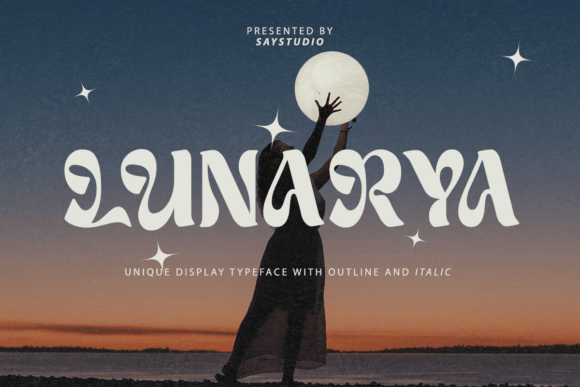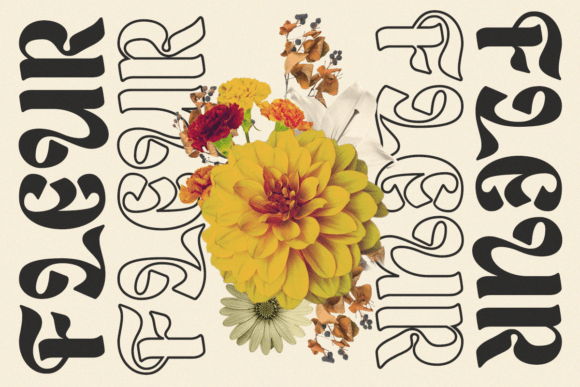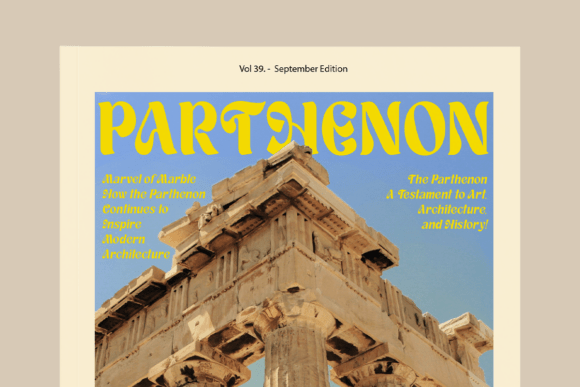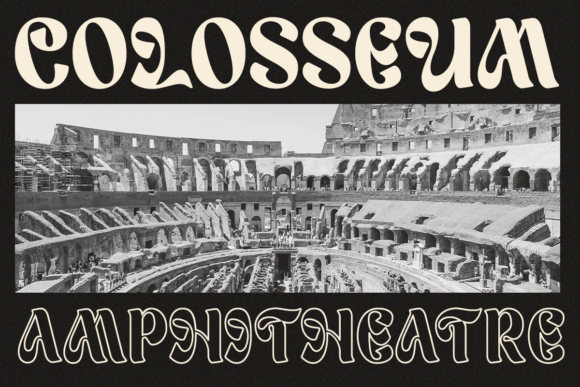
Lunarya Font: Unique Psychedelic Display Font for Titles & Posters
About the Lunarya Font
Introducing the Lunarya Font, a beautifully crafted typeface designed to elevate your creative projects. Introducing Lunarya a Unique Display Font with Outline and Italic Style. All capital letters with psychedelic style. Lunarya has some Special Alternates and ligatures some fun nuance to your design. This font is perfect for t-shirt design, book covers, titles, and many more.
Lunarya’s bold, psychedelic style shines in headlines, posters, and branding projects requiring a strong visual impact. Its unique outline and capital-letter-only structure make it ideal for short, impactful text, adding a touch of retro-futurism. Avoid using Lunarya for body text or UI elements; its highly stylized nature compromises readability in extended passages.
Consider pairing Lunarya with a clean sans-serif like Open Sans for contrast, balancing its psychedelic energy with a modern, readable counterpart. For a more vintage feel, a classic serif like Garamond could work well, grounding the design. Alternatively, a geometric sans-serif like Montserrat can add a contemporary edge.
Lunarya’s overall personality is energetic and rebellious, making it a superb choice for brands targeting a younger demographic or projects with a vibrant, counter-cultural aesthetic.
Lunarya Font Usage Examples
Lunarya Font Example